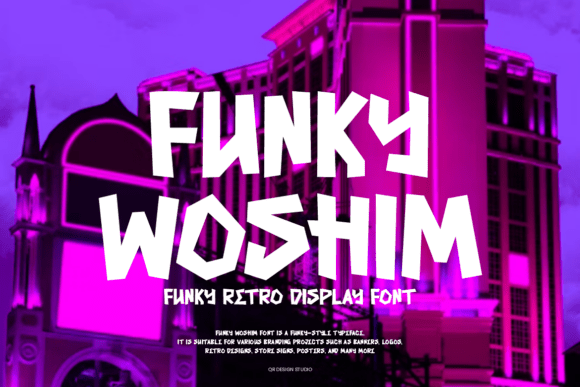
Introduction to Funky Woshim Font
Funky Woshim is a funky display font.
Key Features of Funky Woshim Font
Why Choose Funky Woshim Font?
Funky Woshim Font offers exceptional quality and versatility, making it a valuable addition to your design toolkit. Whether you’re creating for personal projects or commercial use, Funky Woshim Font delivers professional results.